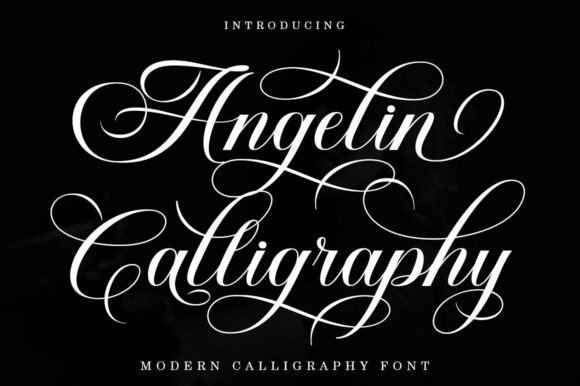
The Quest for the Perfect Font: Discovering Angelin Calligraphy
I still remember the countless hours I spent searching for the perfect font for a client’s wedding invitation project. The design brief called for something elegant, sophisticated, and utterly romantic. I scrolled through font after font, but nothing seemed quite right – until I stumbled upon Angelin Calligraphy. ✨
This modern script font has a classic and elegant touch that immediately caught my attention. Its sleek, clean, and feminine design made it an instant favorite. I was impressed by its versatility and the luxurious letter connections that make it easy to read. In this article, I’ll share my experience with Angelin Calligraphy, its features, and how to make the most of it in your designs.
An Honest Review of Angelin Calligraphy
- ✨ Elegant and sophisticated design: Angelin Calligraphy has a timeless beauty that makes it perfect for formal designs.
- ✅ Easy to read: The luxurious letter connections and clean design make it easy on the eyes.
- 🌟 Feminine and sensual: This font exudes a sense of glamour and sophistication, making it perfect for fashion, beauty, and wedding designs.
- 👍 Versatile: Angelin Calligraphy can be used in various design projects, from invitations to novels, magazines, and more.
While Angelin Calligraphy is an excellent font, there are a few things to keep in mind: 🤔
- ⚠️ Limited use of uppercase letters: While the font has beautiful uppercase letters, it’s best used sparingly to maintain elegance.
- ⚠️ Requires attention to spacing: As with any script font, be mindful of letter spacing to ensure optimal readability.
- Experiment with OpenType features like ligatures and stylistic alternates to add a personal touch to your design.
- Explore the Glyphs panel to access stylistic alternates, ligatures, and other OpenType features.
The Inspiration Behind Angelin Calligraphy
While the actual designer of Angelin Calligraphy remains a mystery, it’s clear that they were inspired by traditional calligraphy and modern typography. The result is a font that’s both elegant and approachable, perfect for a wide range of design projects.
Q: What type of projects is Angelin Calligraphy best suited for?
A: Angelin Calligraphy is perfect for formal designs, such as invitations, labels, restaurant menus, logos, fashion, makeup, stationery, novels, magazines, books, greeting/wedding cards, packaging, labels, or all kinds of advertising purposes.
Q: Is Angelin Calligraphy easy to read?
A: Yes, Angelin Calligraphy is designed to be easy to read, thanks to its clean design and luxurious letter connections.